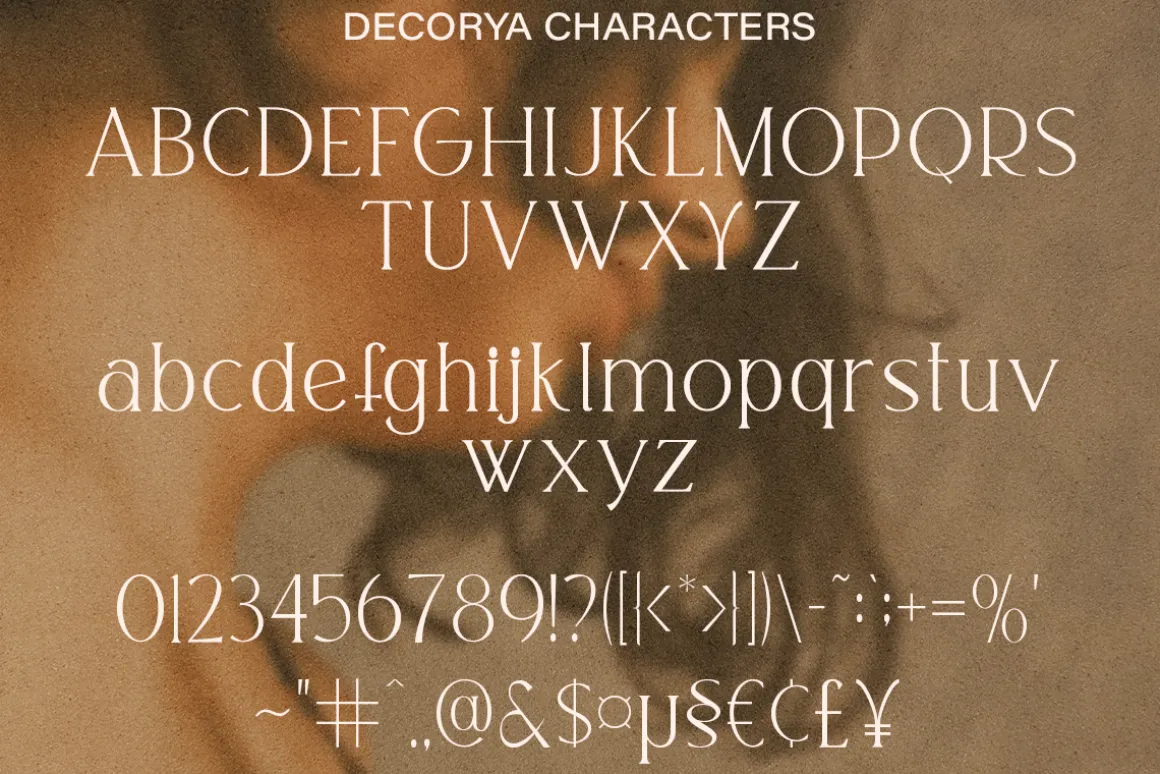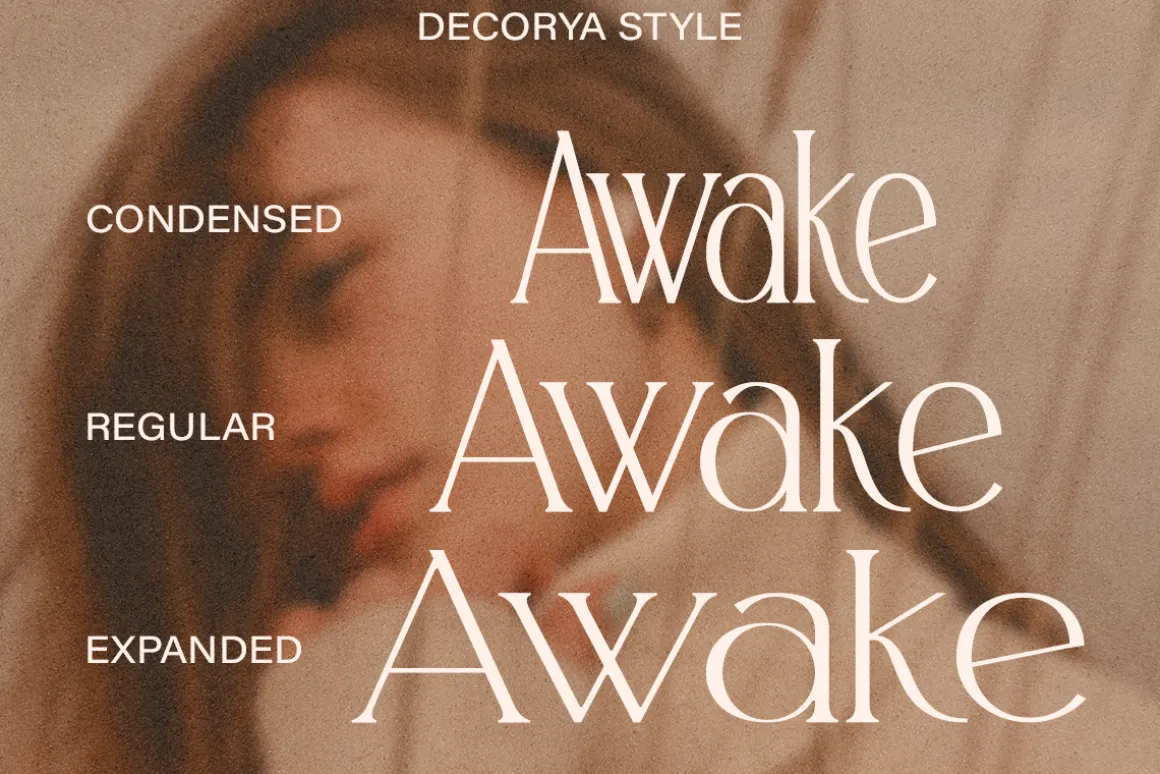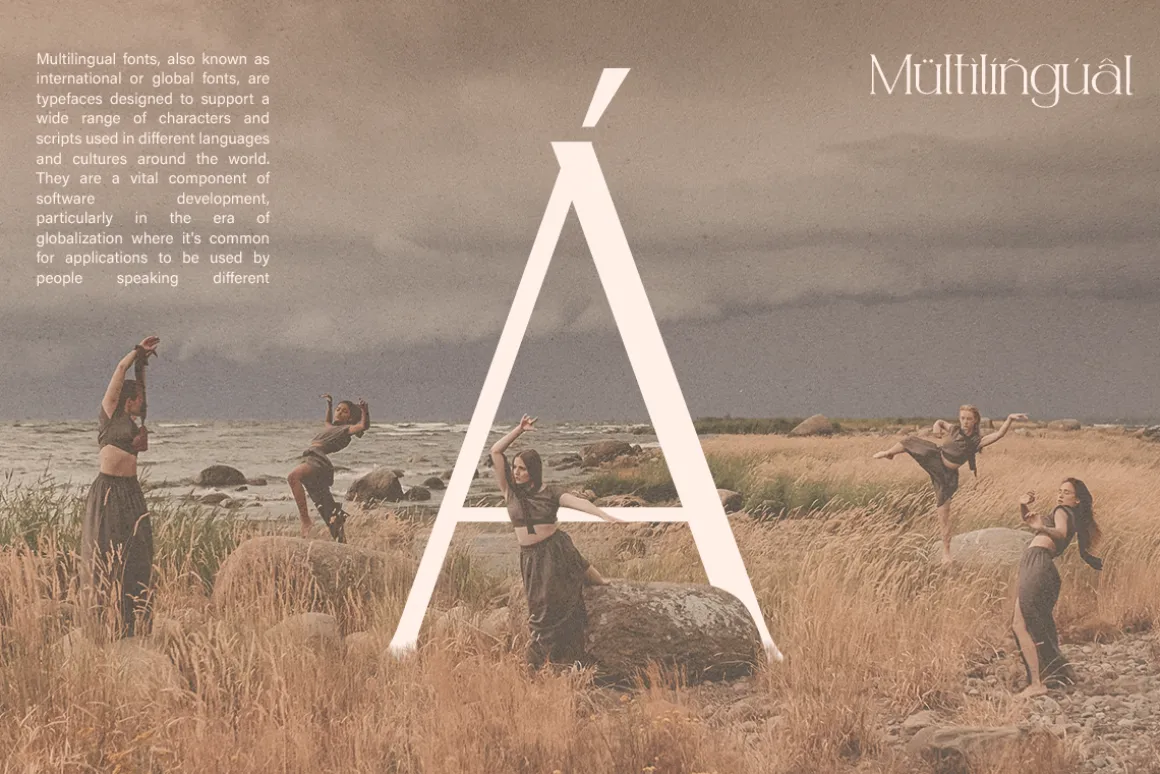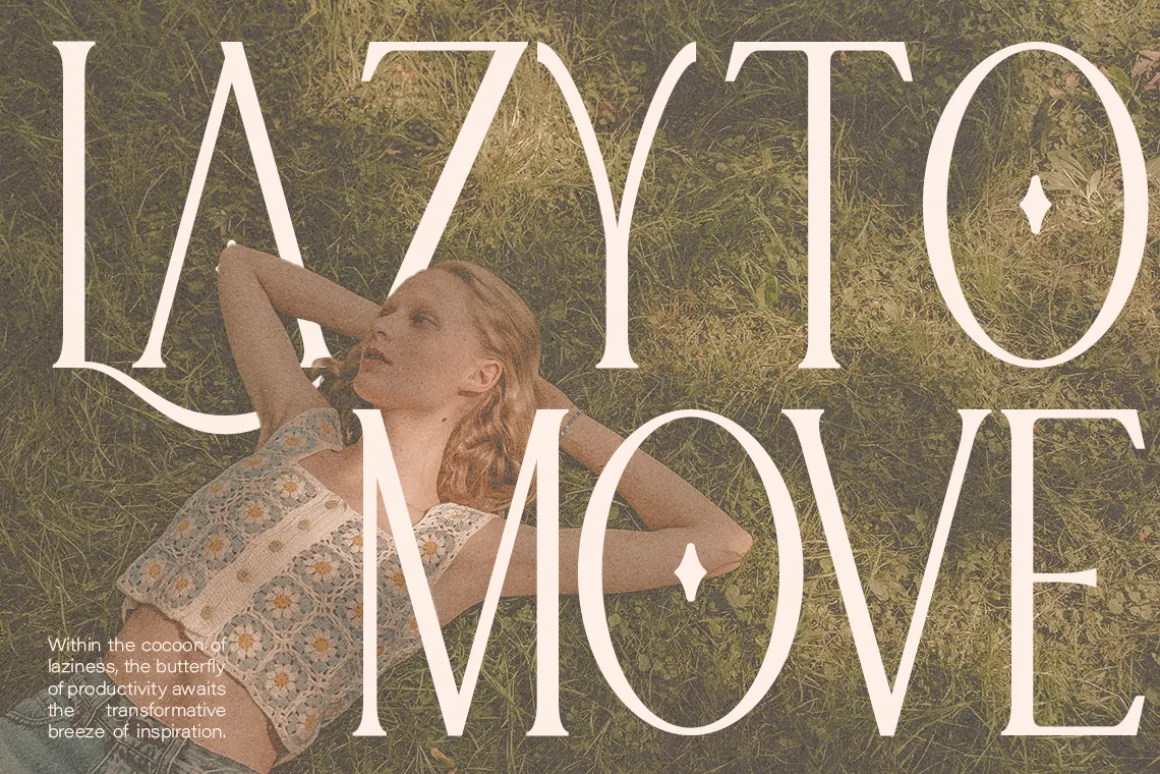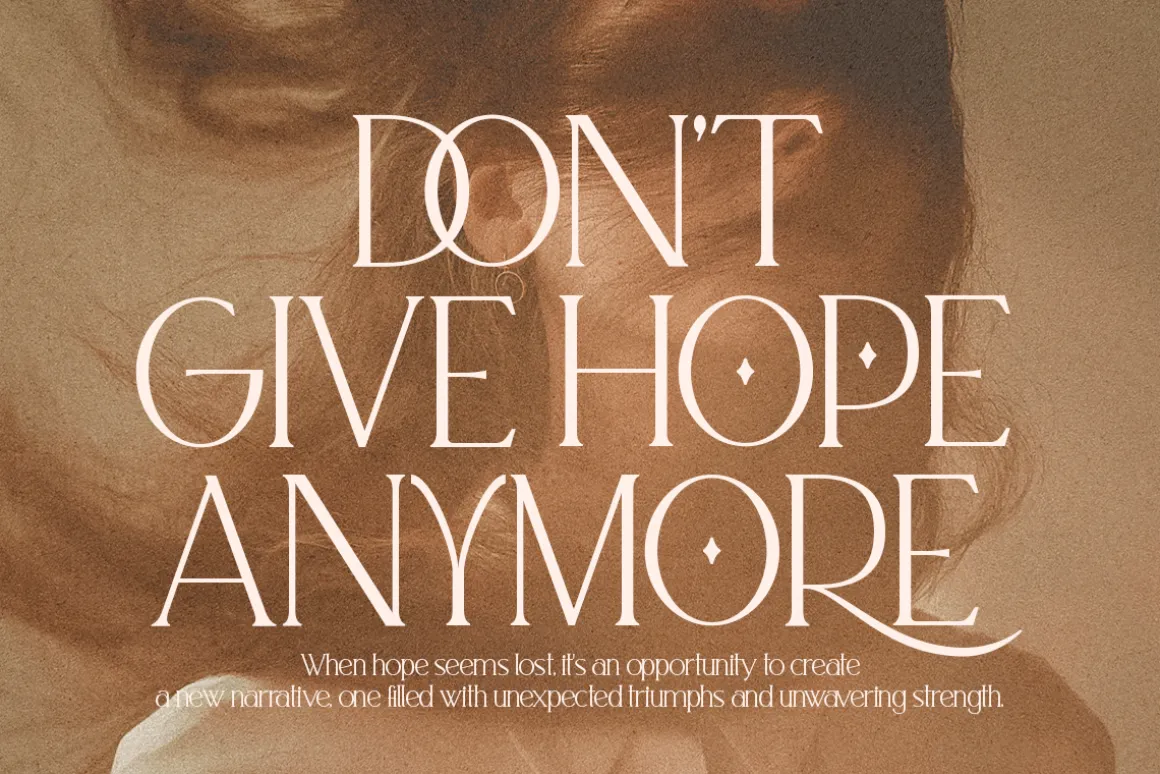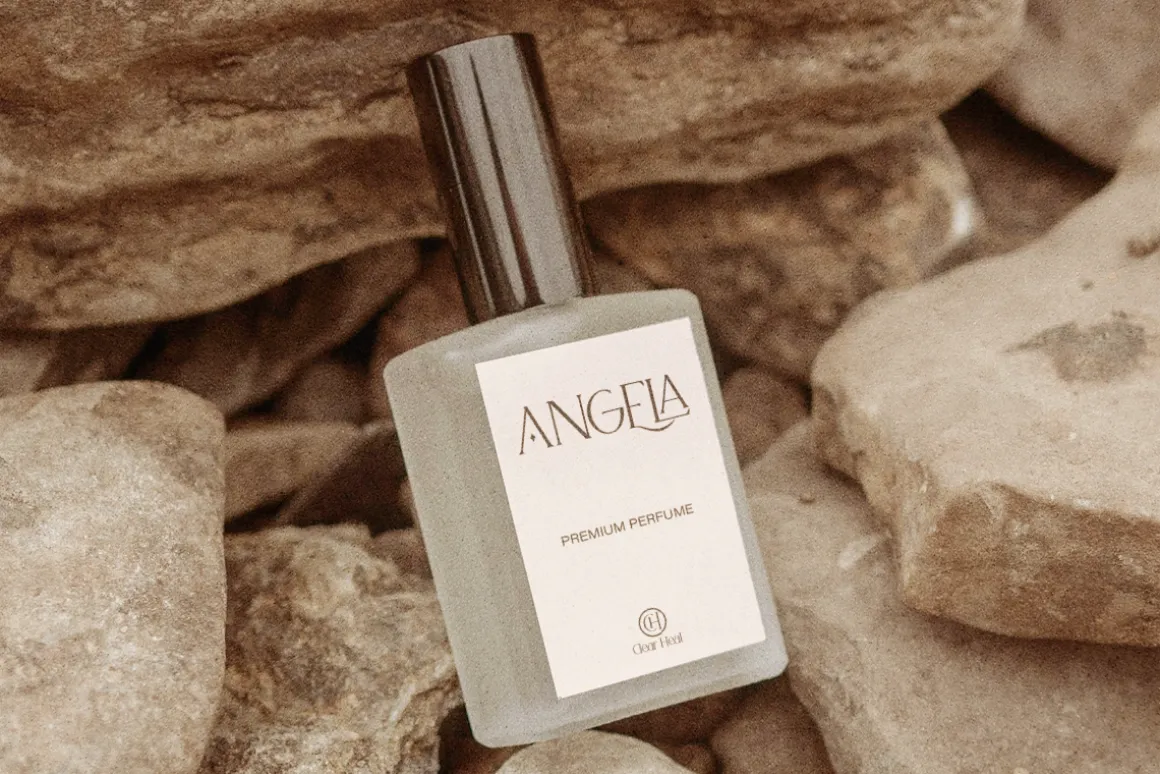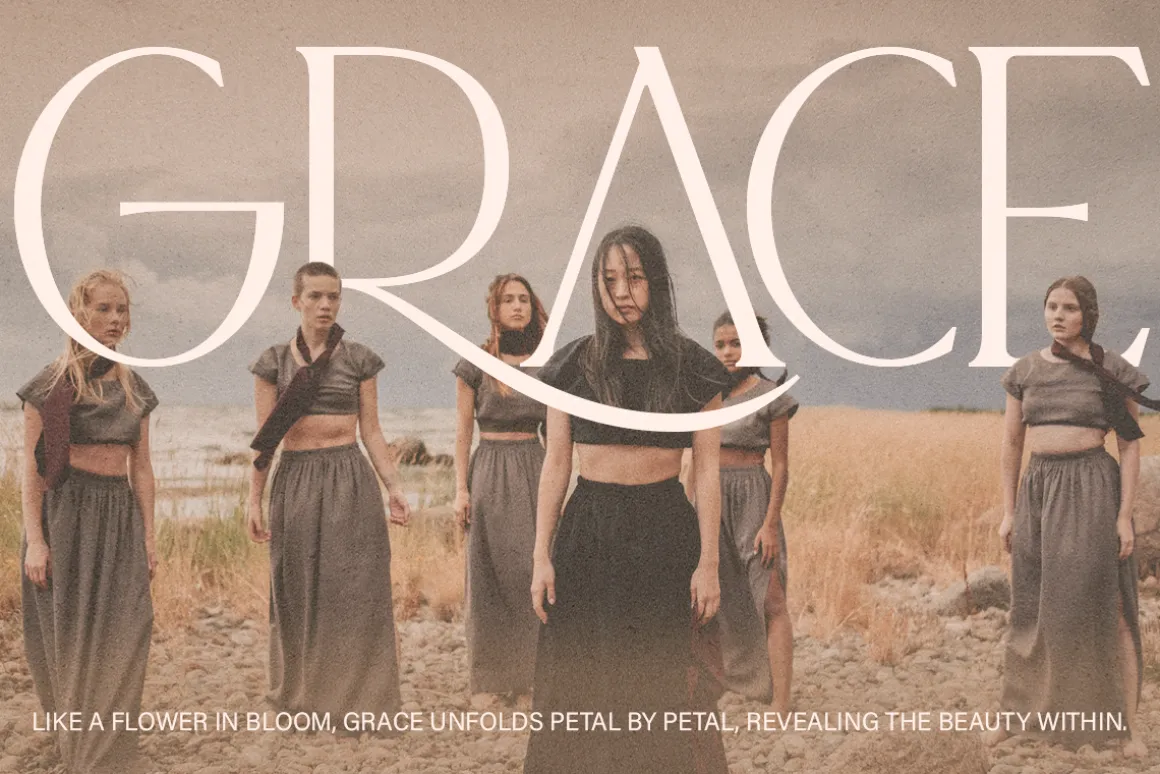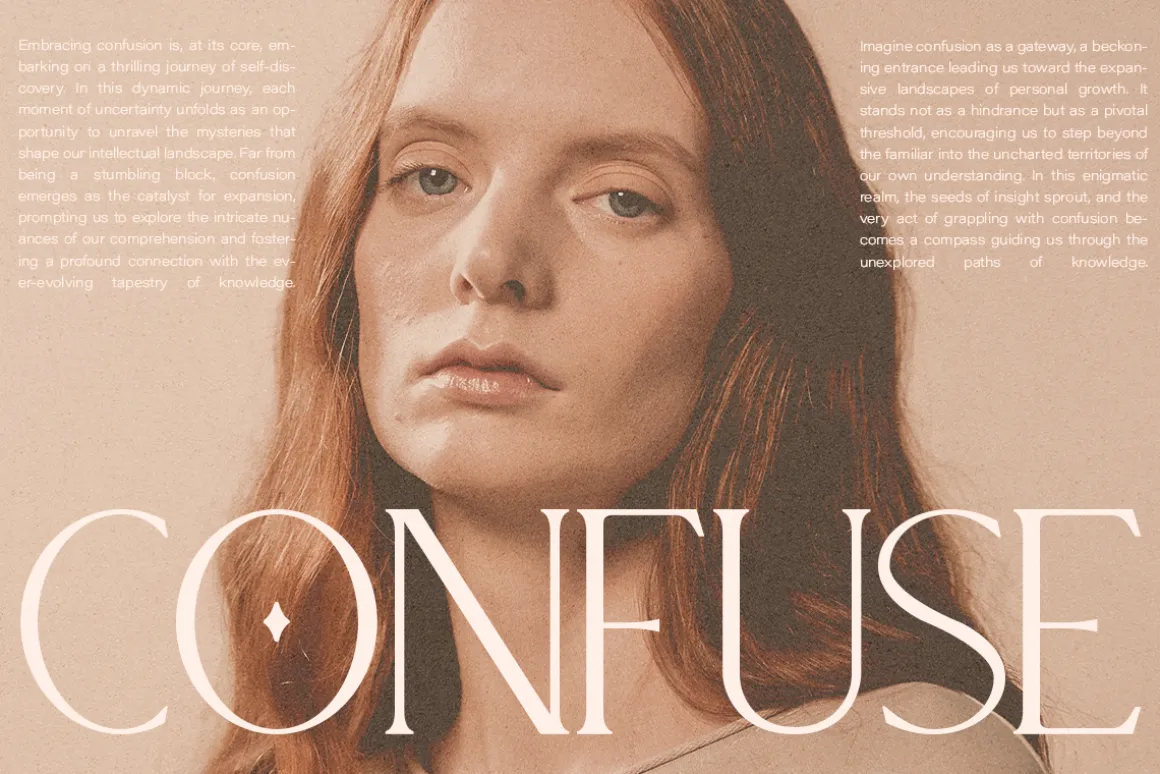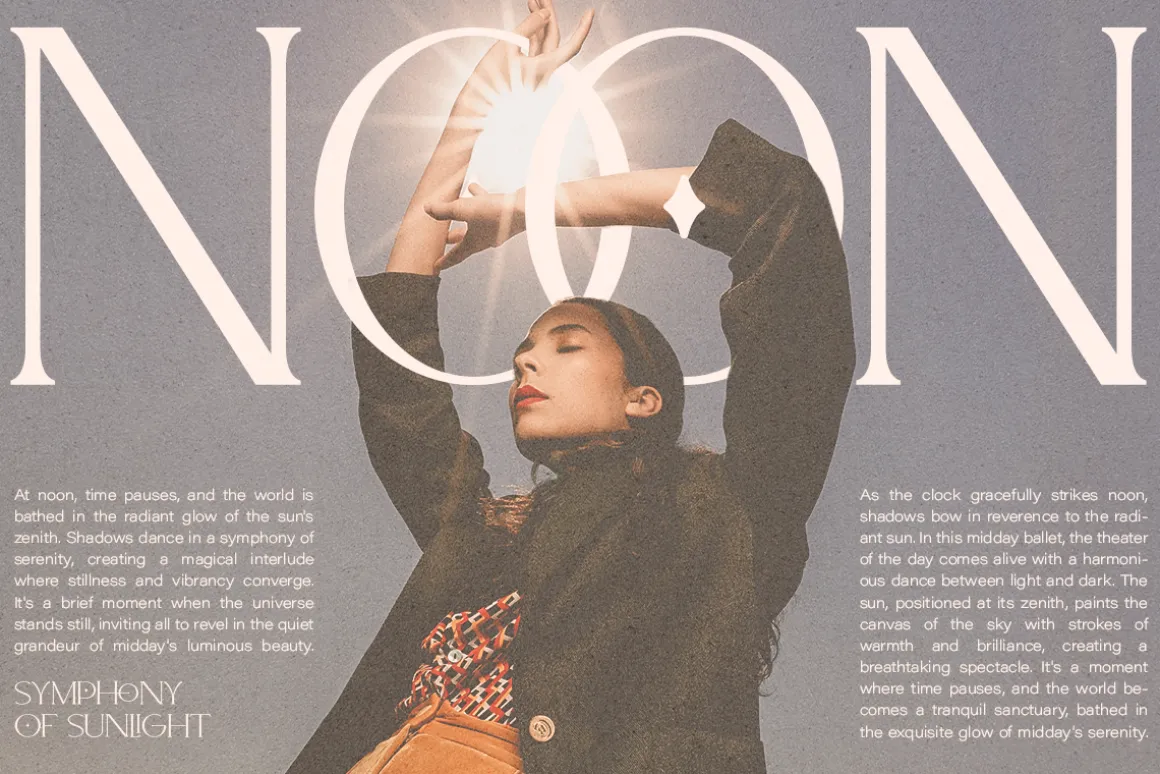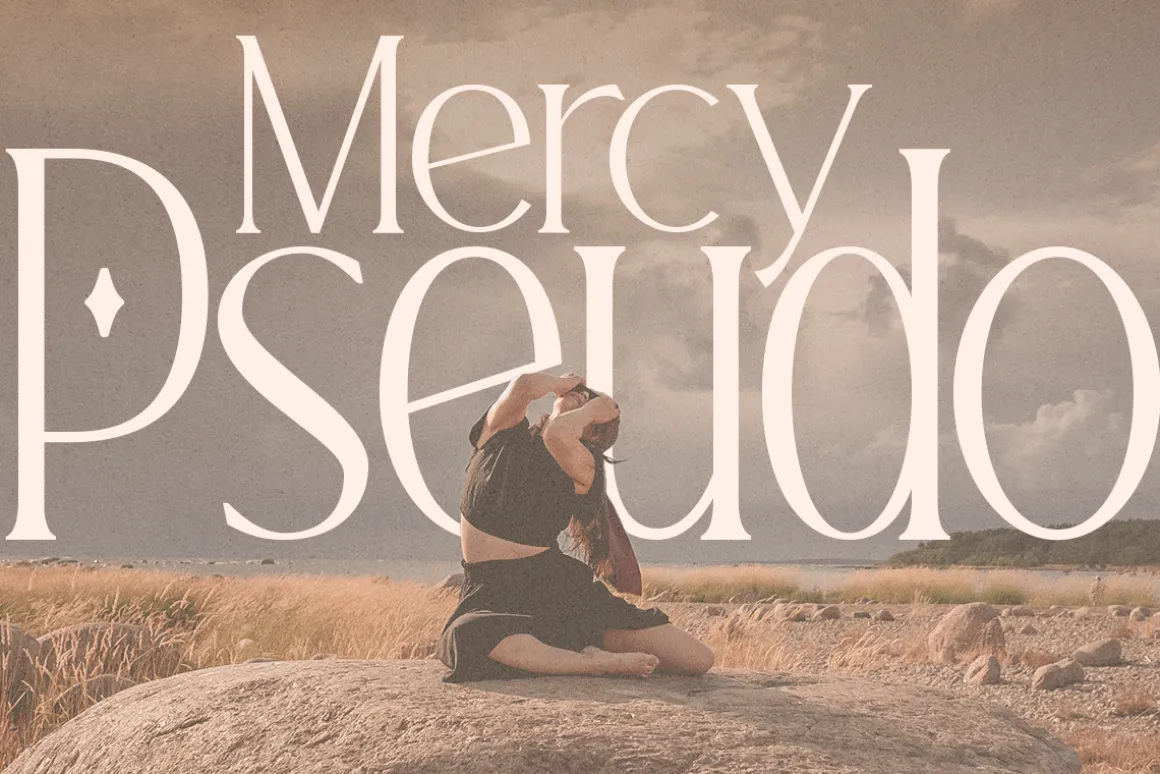
Introducing DEKORYA – a brand new serif with all the nostalgic vibes!
DECORYA typeface is a beautiful and inspiring mix of classic calligraphy and modern serif with 46 unique ligatures and special alternates. Comes in 3 versions: Condensed, Regular and Expanded
DECORYA is made mainly for headlines, titles, and other short texts and is well-suited for advertising, vintage mood boards, branding, logotypes, packaging, titles, editorial design, modern logos, websites, social media quotes, wedding branding, modern and vintage design
- 46+ Special Alternates and Ligatures
- Condensed, Regular and Expanded